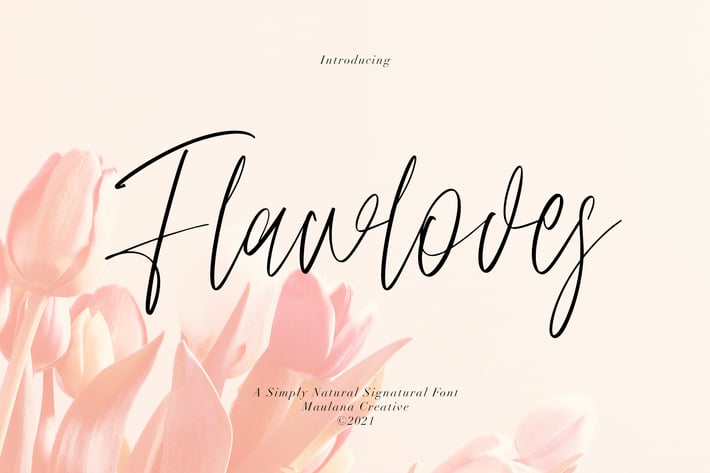
Flawloves Signature Font
Flawloves is girly signature font, with clean thin contrast stroke, slanted, condensed and fun character. It has Opentype features ligatures of character, To give you an extra creative work. Flawloves font support multilingual more than 100+ language. This font is good for logo design, Social media, Movie Titles, Books Titles, a short text even a long text letter and good for your secondary text font with sans or serif. Make a stunning work with Flawloves font.